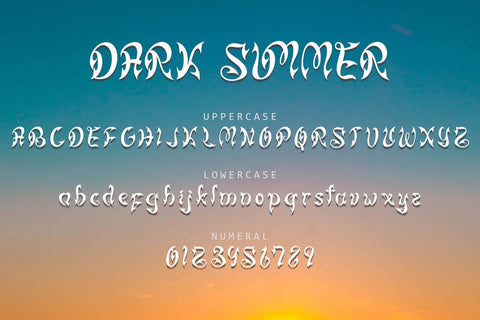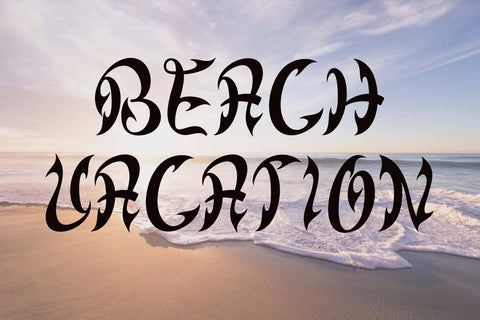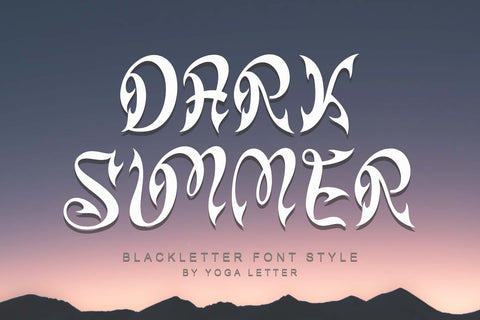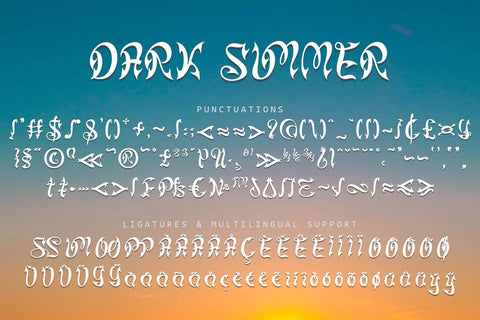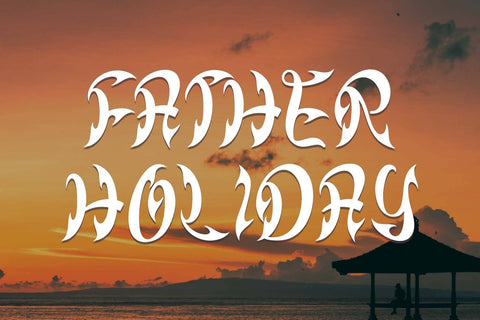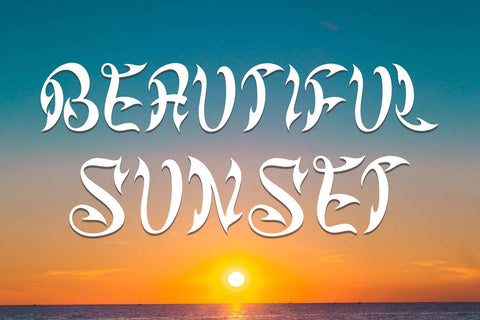
Dark Summer
"Dark Summer" is a unique and elegant blackletter font. It comes with capital letters, lowercase letters, ligatures, numbers, punctuation, and multilingual support. It is perfect for use in summer, banners, posters, prints, halloween, christmas, father's day, 4th of july, etc.